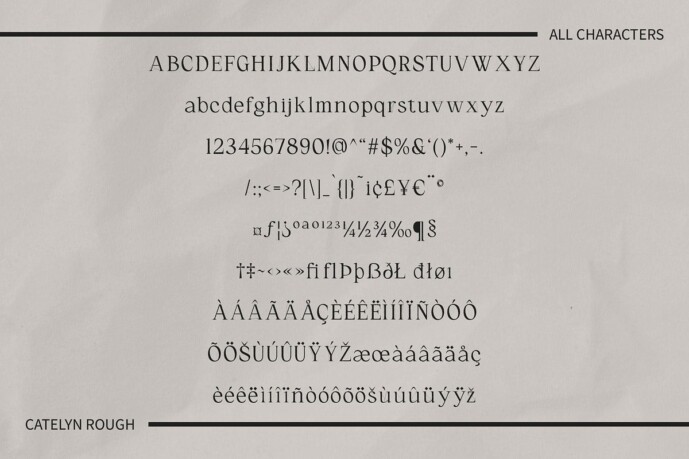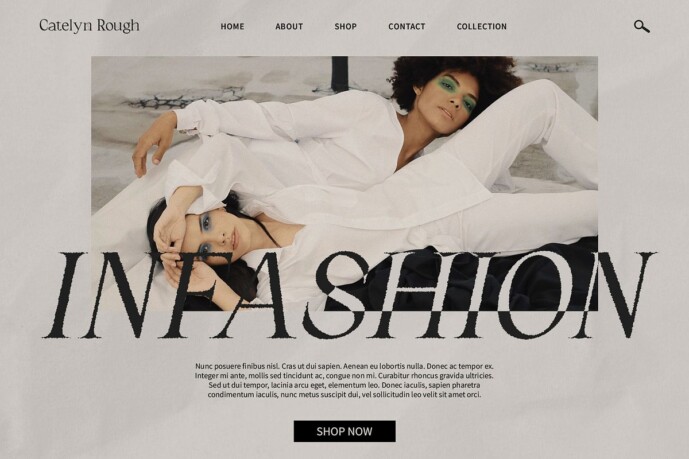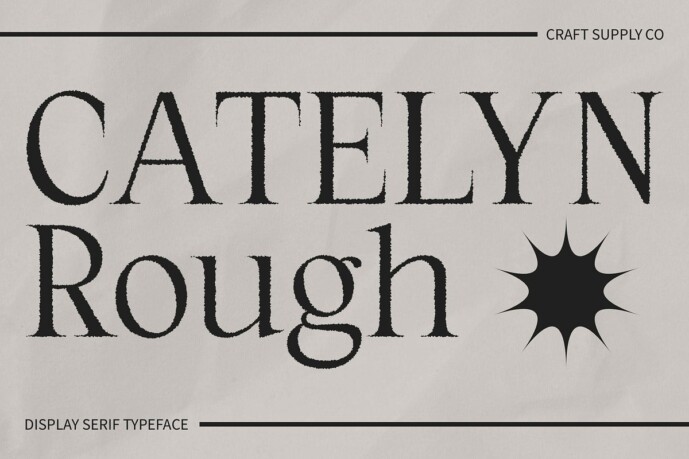
Catelyn Rough Font
Catelyn Rough Font is a modern serif font that beautifully balances elegance with a rugged vibe. Perfect for creating eye-catching displays, this font adds a sophisticated yet bold touch to your designs.
With its elegant serif design and rough texture, Catelyn Rough offers a unique and captivating twist on traditional serif fonts. The blend of refined lines and rugged edges creates a visually striking and dynamic look, ideal for posters, invitations, and other projects that need a touch of sophistication and strength.
Whether you’re designing a flyer for an upscale event or creating packaging for a premium product, Catelyn Rough is sure to make an impact. Its stylish design and rough texture make it perfect for displays that demand attention and convey a sense of elegance with an edge.
Despite its distinctive appearance, Catelyn Rough is versatile and easy to use. The font works well in both large and small sizes, making it suitable for a variety of applications, from headlines and banners to logos and more. With its blend of modern elegance and rough vibe, Catelyn Rough adds a captivating and dynamic touch to any design.